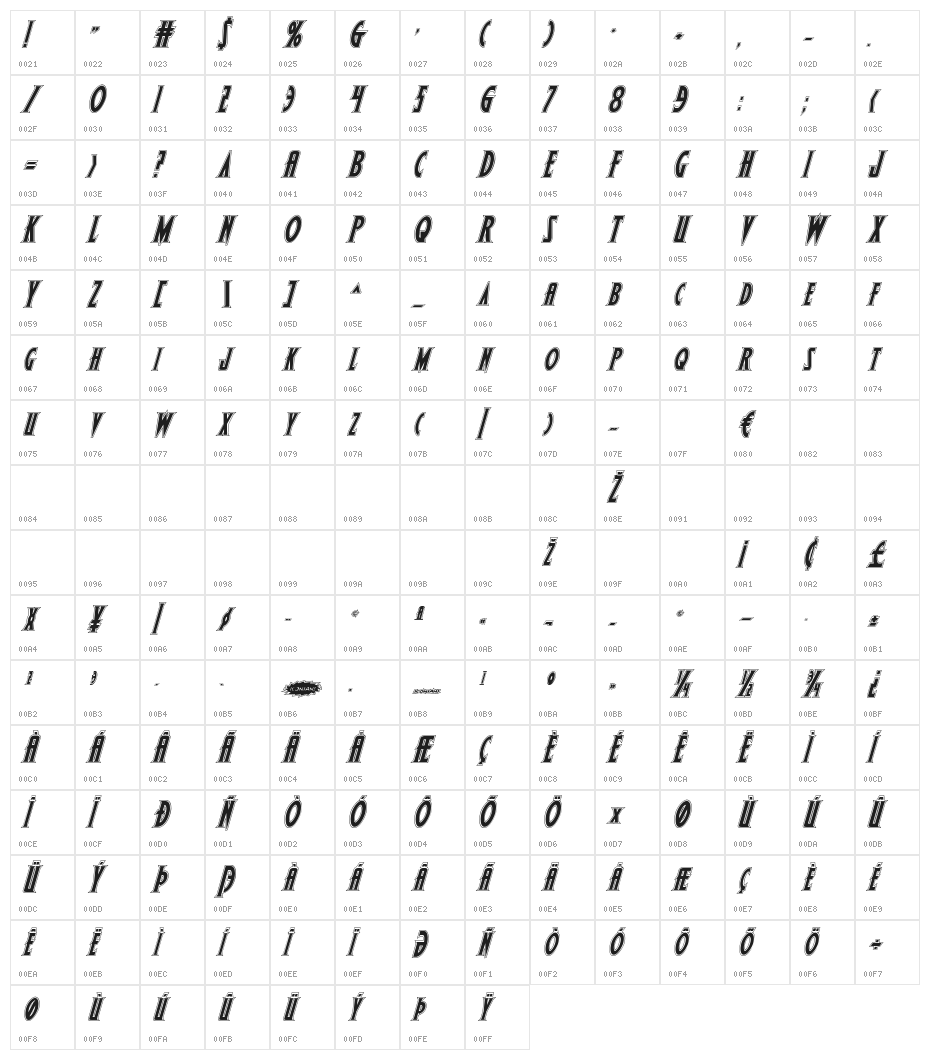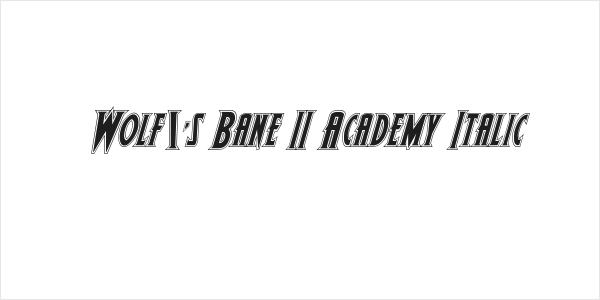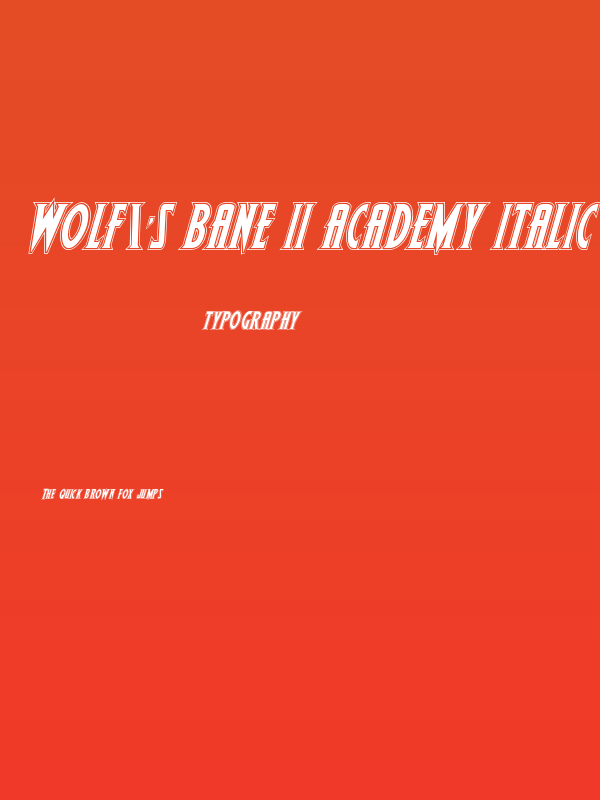
Wolf's Bane II Academy Italic Font
Wolf's Bane II Academy Italic Description
This font features a bold and dynamic style with a strong italic slant, giving it a sense of movement and energy. The characters are outlined with a thick black border, enhancing their boldness and making them stand out. The interior of each letter is filled with a solid color, creating a striking contrast against the outline. The font has a decorative flair, with sharp angles and unique serifs that add to its distinctive appearance. The numbers and special characters follow the same design principles, ensuring consistency throughout. This font is ideal for projects that require a bold and eye-catching typeface.